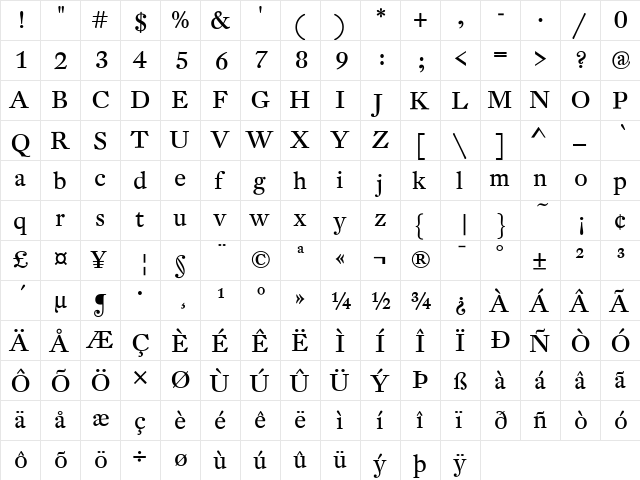
DTLFleischmannT Regular Font Preview
DTLFleischmannT Regular
DTLFleischmannT is a composed and adaptable typeface that performs quietly and consistently across a wide range of design contexts.